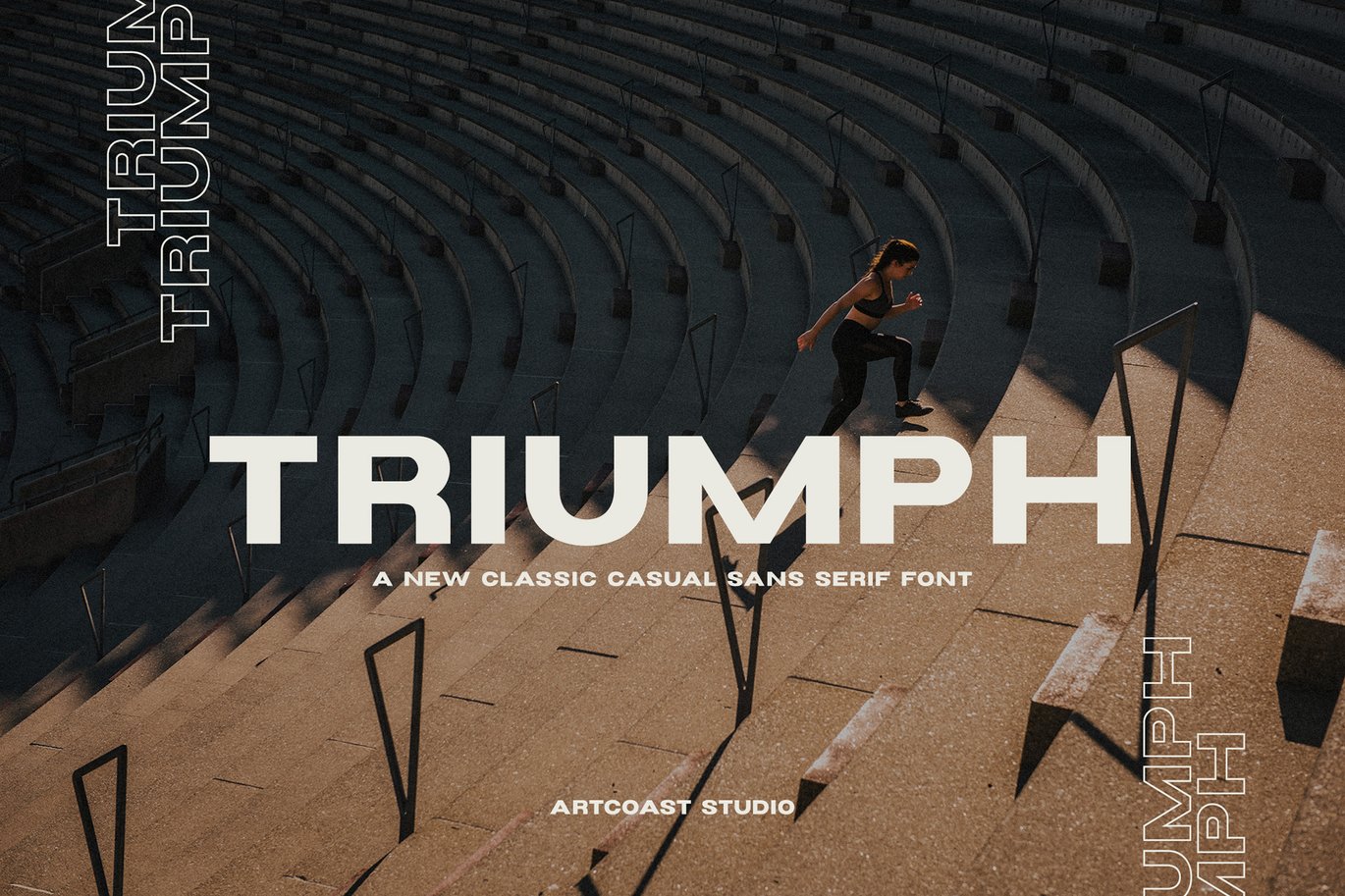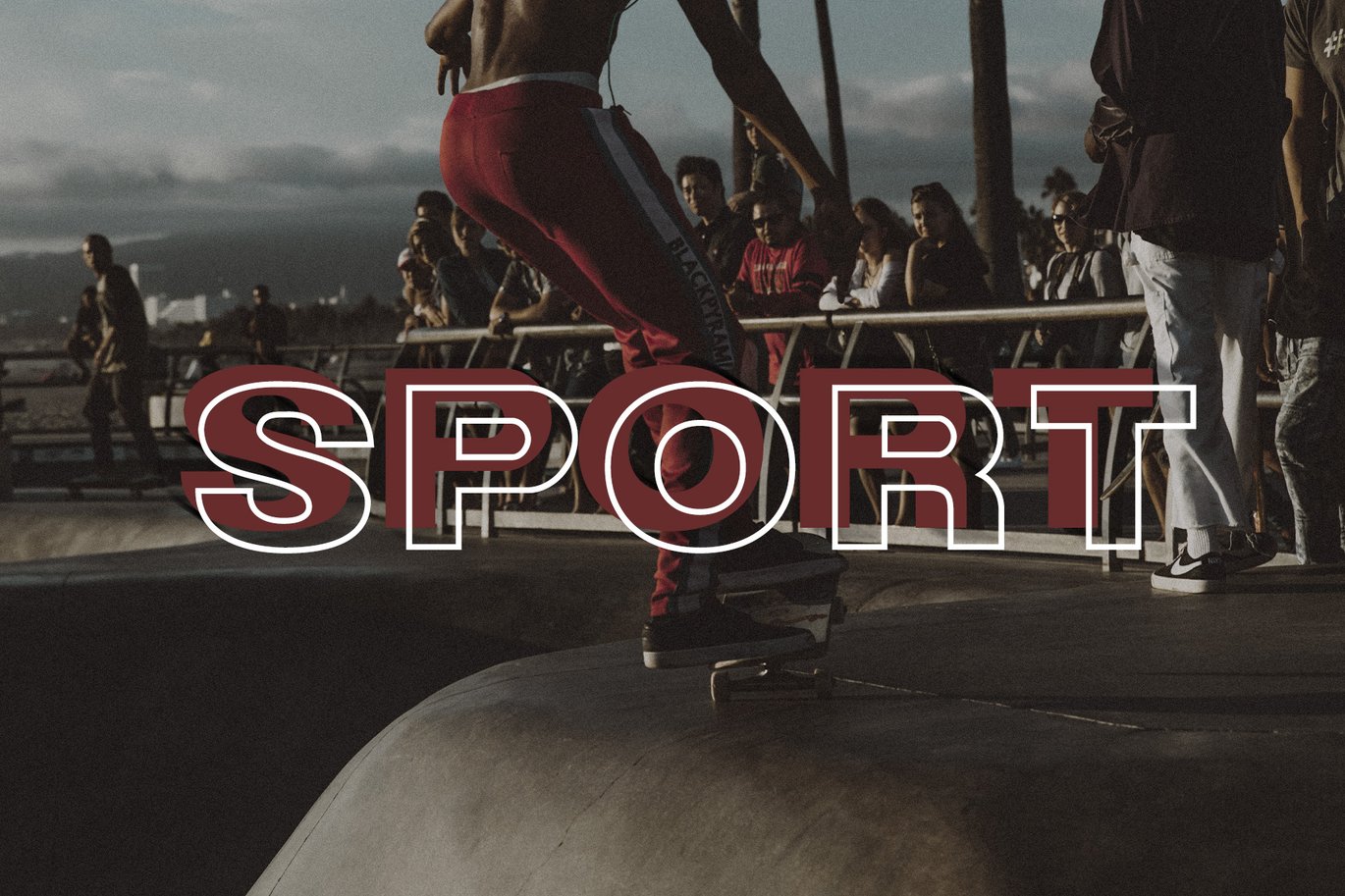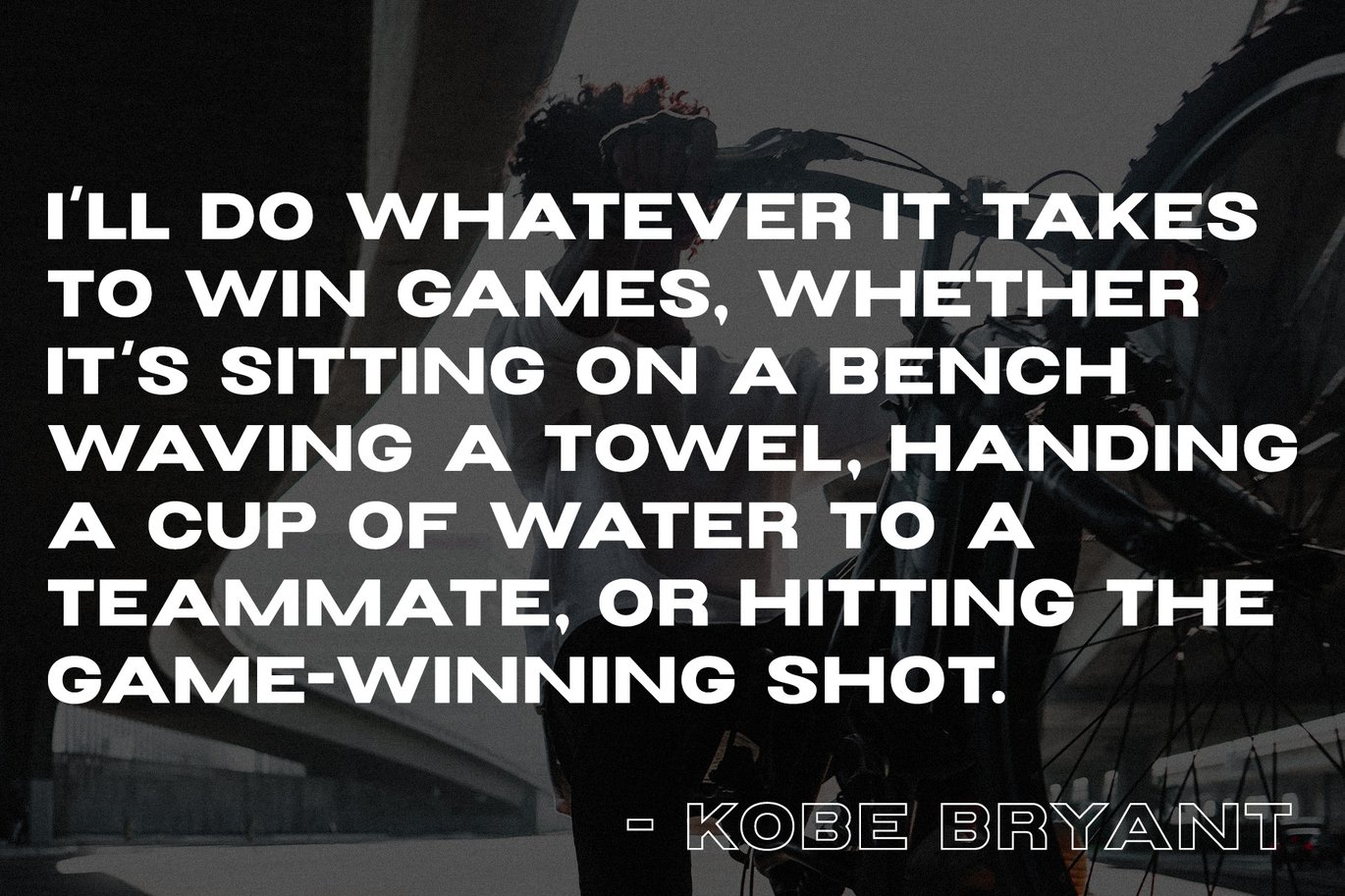
Triumph – Sans Serif Wide Font is a versatile typeface ideal for various projects, including Sans-Serif, logos, branding, posters, blog headers, advertisements. The free version includes a full set of uppercase and lowercase letters, available in OTF, WOFF format.
Triumph – Sans Serif Wide Font